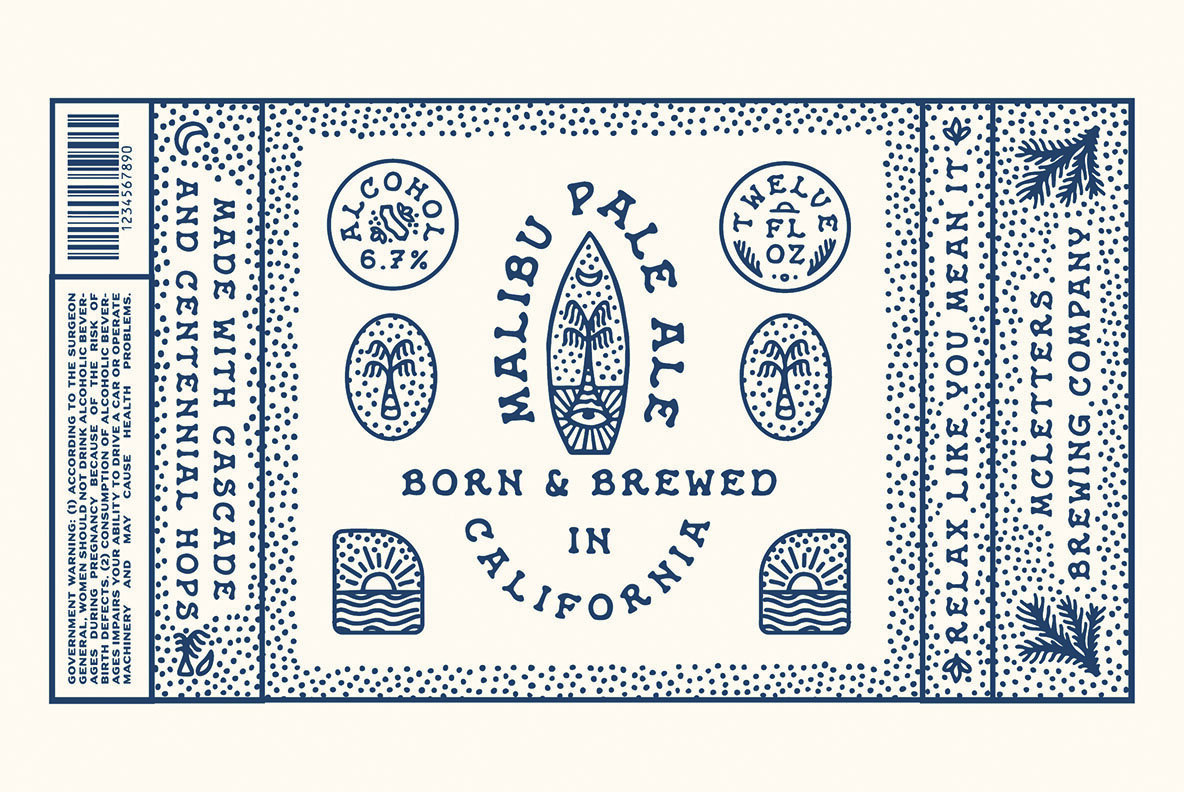
MC Malibu
MC Malibu exudes the charm of handmade artistry with its vintage, hand-drawn style. This display font, with its organic character, evokes a sense of authenticity and warmth, making it a great addition to projects that require a personal touch.MC Malibu: A Hand-Drawn Organic Display Font
McLetters Handmade Type brings a heartfelt human touch to digital design. Rooted in tactile authenticity, their font library showcases hand-drawn forms that embrace imperfection and individuality—each character imbued with the rhythm of pen, brush, or marker. From playful script to rough-edged serif, their typ...